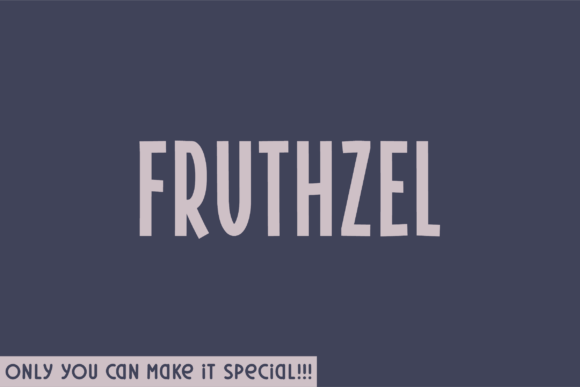
Unleash Your Creativity with the Whimsical Fruthzel Font
Have you ever stared at a blank page, feeling the pressure to create something truly special? The blank slate can be both inspiring and intimidating, but it’s moments like these that call for a font that can bring a touch of magic to your work. Enter the Fruthzel Font, a charming display font that’s perfect for designers who crave a little whimsy in their layouts.
This delightful typeface is designed to add a friendly, “cut-out” aesthetic to your designs, making it ideal for children’s book titles, independent food branding, and playful social media overlays. With its unique balance of quirky charm and structured silhouette, the Fruthzel Font is a valuable asset for designers looking to add a touch of personality to their work. By incorporating this font into your projects, you can infuse your creations with a youthful spirit and make them truly special.
Fruthzel Font Key Features
- Unique Characteristic: Fruthzel Font features a unique blend of futuristic and modern styles, making it ideal for science fiction and technology-themed designs.
Fruthzel Font Review
Overall, I was excited to dive into the Fruthzel font, but my experience had its ups and downs. ✨ One thing that really caught my attention was the unique blend of modern and vintage flair that Fruthzel offers. The font is versatile and can be used for a wide range of designs, from branding to editorial content.
- ✨ Customizable: Fruthzel offers a range of customization options, making it easy to tailor the font to fit your design needs.
- ✨ High-quality: The font is crisp and clear, making it perfect for digital use.
However, there are some limitations to consider ⚠️. One of the main drawbacks is the lack of language support. If you need to work with languages other than English, you may find that Fruthzel falls short.
- ⚠️ Limited language support: Fruthzel only supports Latin-based languages, which can be a major limitation for designers working with non-English scripts.
- ⚠️ Not ideal for complex text: Due to its vintage-inspired design, Fruthzel may not be the best choice for complex or lengthy text blocks.
Overall, Fruthzel is a solid choice for designers looking for a unique and modern font. While it has its limitations, the customizable options and high-quality design make it a great addition to any design arsenal.
Getting the Most Out of Fruthzel
To get the most out of the Fruthzel font, use it sparingly in headings or titles to add a touch of elegance and sophistication. You can also use it in combination with other fonts to create a unique and eye-catching design. Experiment with different font sizes, colors, and styles to find the perfect balance for your design.
The Fruthzel font is commonly used in wedding invitations, luxury branding, and high-end packaging designs. It’s also a popular choice for creating elegant and sophisticated business cards, letterheads, and other marketing materials.